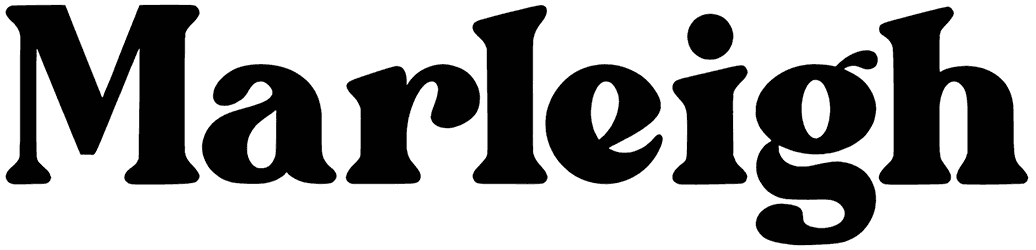
Maybury Font
Maybury can enhance your work and make the collection of serif fonts out of monotony. This retro font has a historical appearance with three different styles that depict the art and beauty of old writings.
It is an excellent idea for creating a different feeling in the fashion and clothing industry, logo design, historical posters, and gift packaging. The lack of numbers in this classic font does not reduce its power and will make it more of a display font.
Designed by: RaisProject